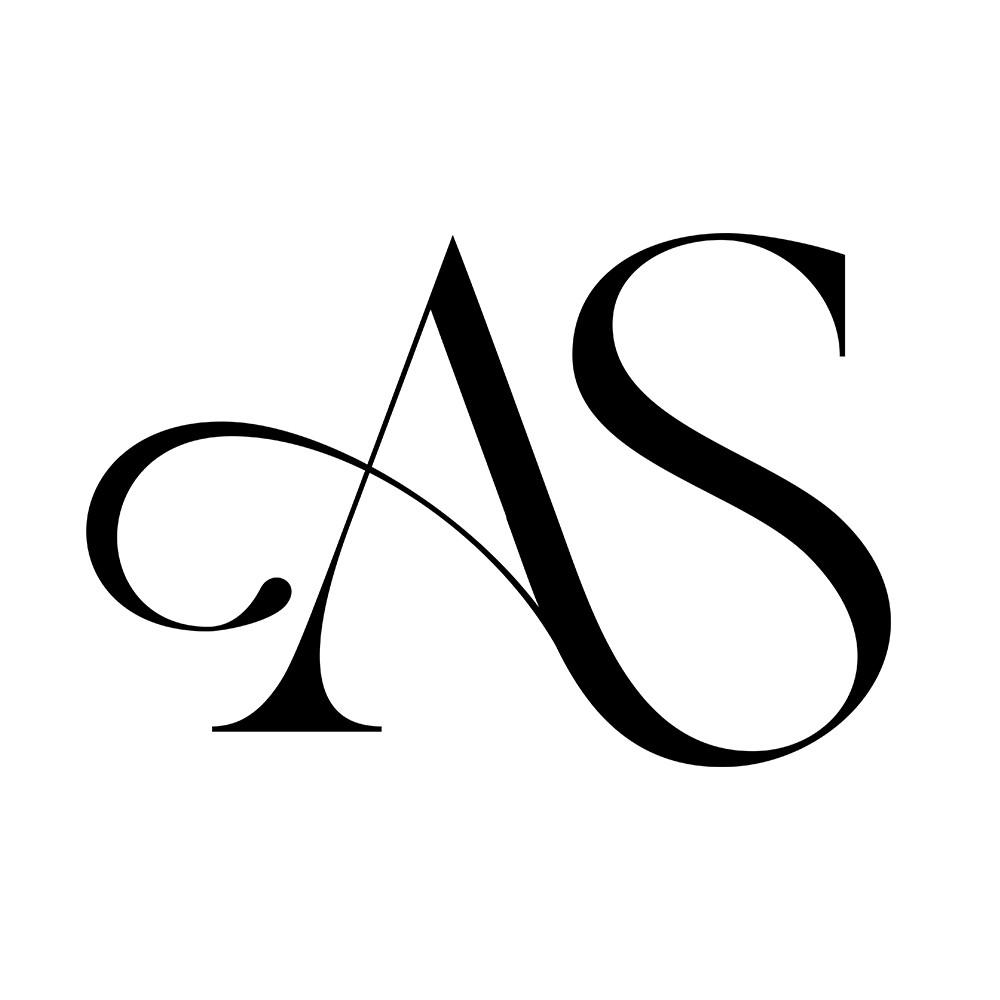
Gladista Font Description
Gladista is a flowing handwritten font, described by an elegant touch, perfect for your favorite projects. Fall in love with its incredibly distinct and timeless style and use it to create spectacular designs! This font is PUA encoded which means you can access all of the glyphs and swashes with ease!
- Ligatures